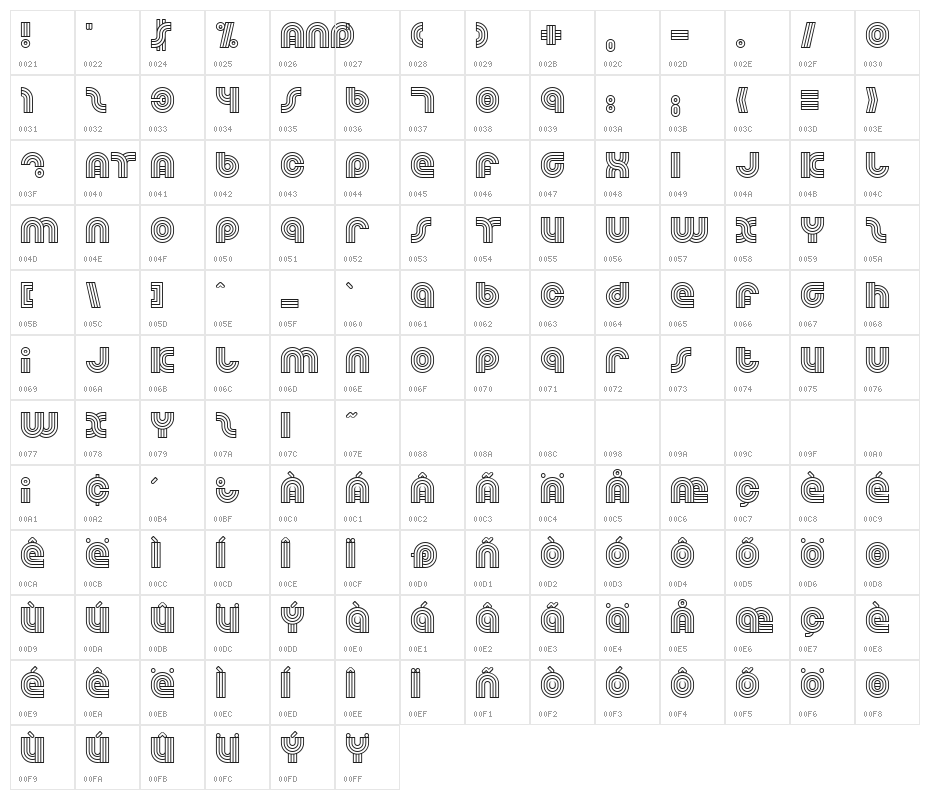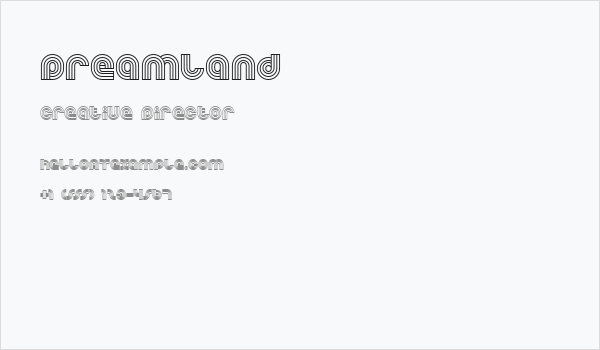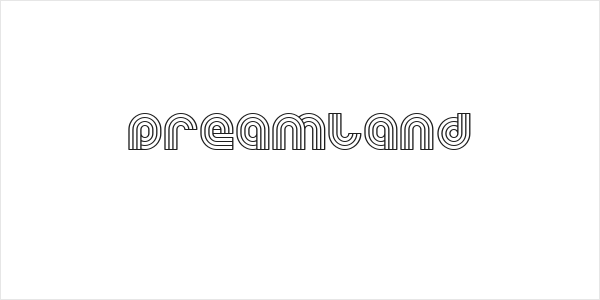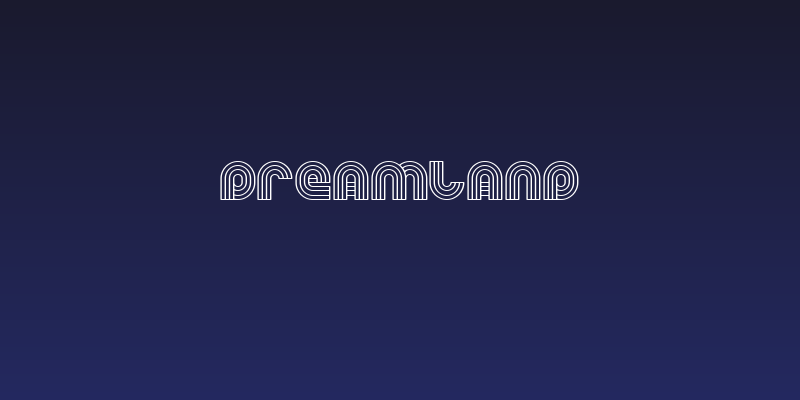
Dreamland Font
Dreamland Description
This font features a unique, decorative style with a retro-futuristic vibe. Each character is composed of multiple parallel lines, creating a layered effect that adds depth and visual interest. The design is symmetrical and geometric, with rounded edges that soften the overall appearance. The uppercase and lowercase letters maintain a consistent style, while the numerals and special characters seamlessly integrate into the design. This font's intricate patterning makes it stand out, offering a bold statement in any design project.
| Overall Style | Retro-Futuristic |
| Proposed Projects | Ideal for use in branding, posters, album covers, and any project seeking a bold, eye-catching aesthetic. |